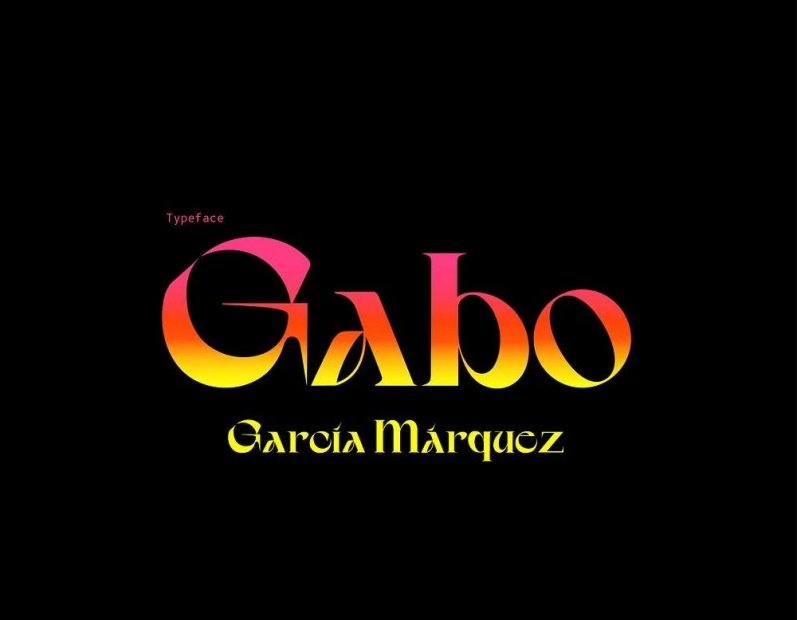
GarciaMarquez Font
GarciaMarquez is a Serif font with sharp and beautiful letters that create fonts that are modern, trendy and elegant. It is inspired by the life and work of Gabriel Garcia Marquez and conveys a metaphor of Garcia Marquez as a storyteller, an icon of magic realism, whose stories form part of a sort of circle which repeats itself at different times within distinct cultures.